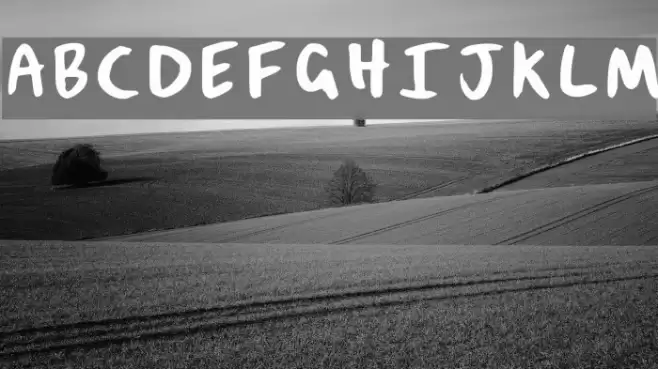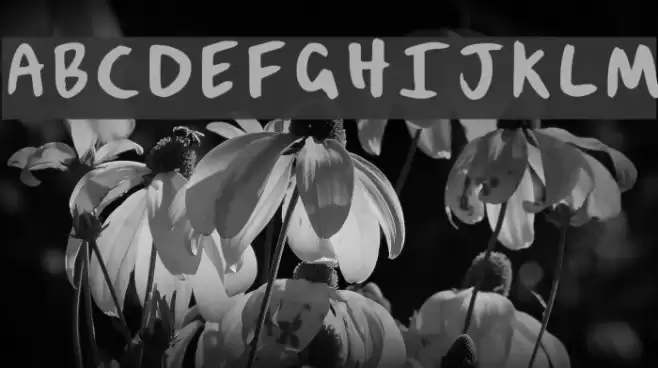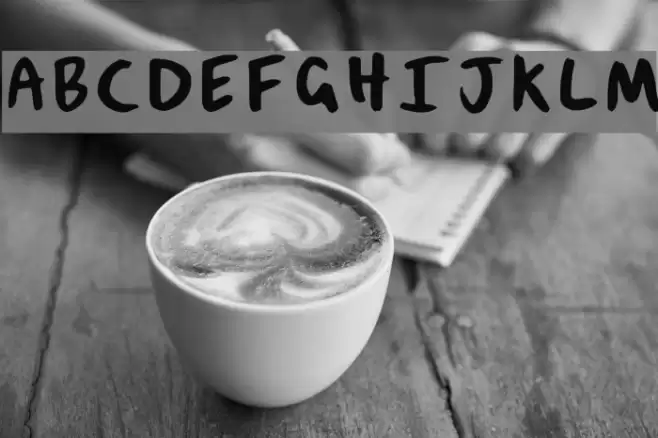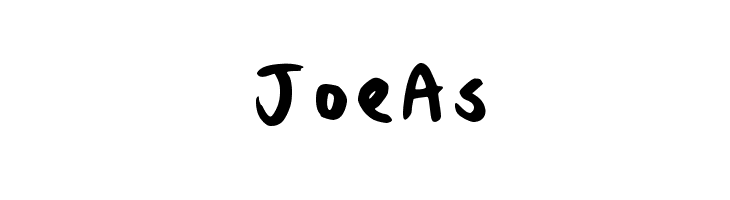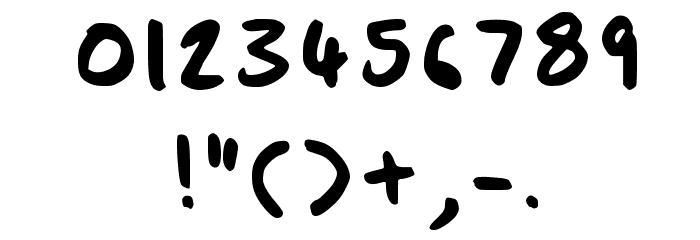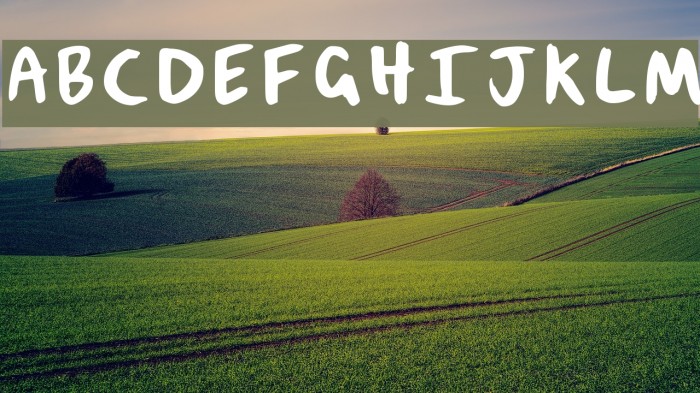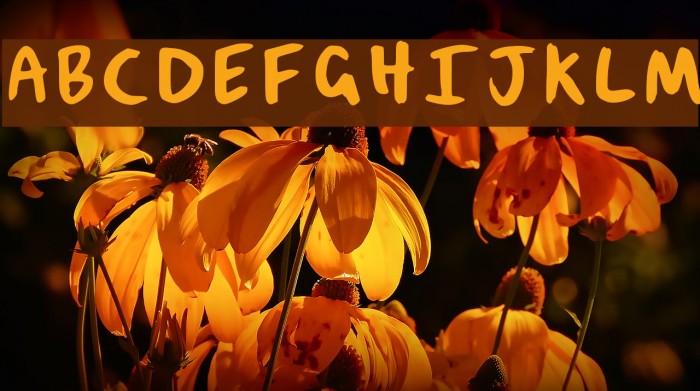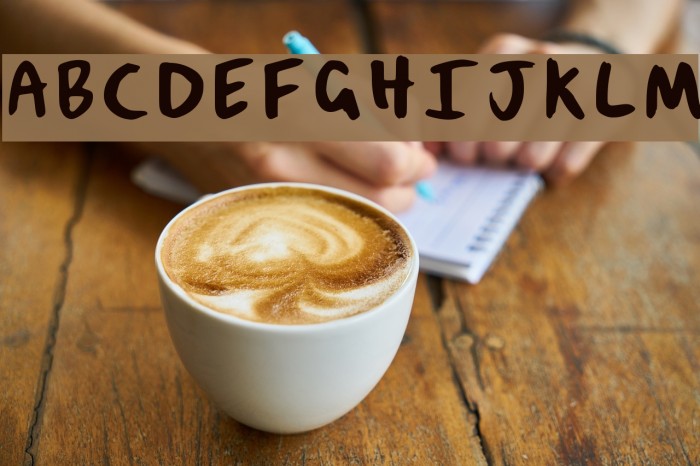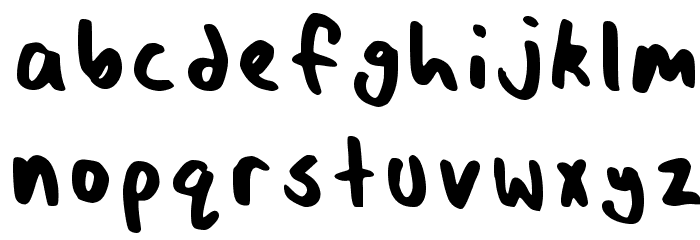
Joe_As Font
Joe_As Description
This playful and informal font features a handwritten style with rounded, bold characters. The uppercase and lowercase letters maintain a consistent flow, giving a casual and approachable feel. The numbers and special characters are equally bold and rounded, ensuring readability while maintaining the font's whimsical nature. The strokes are thick and uniform, contributing to a cohesive and friendly appearance. This font is ideal for projects that require a personal touch or a fun, relaxed vibe. Its handwritten quality makes it suitable for creative and informal applications.
A bold, handwritten font with a playful and informal style from Uncategorized fonts.
- Proposed Projects: Ideal for children's books, greeting cards, casual branding, and social media graphics.
- Overall Style: Casual, Playful
- Use Case: Headlines, Informal text, Creative projects